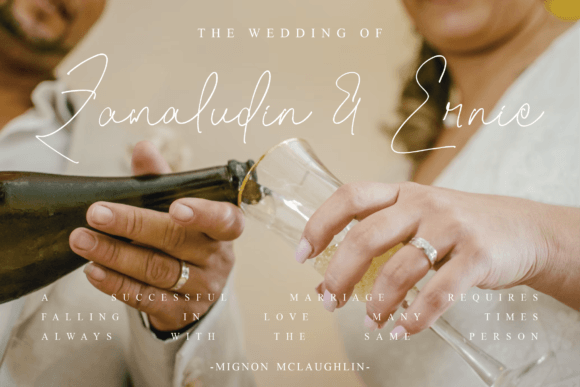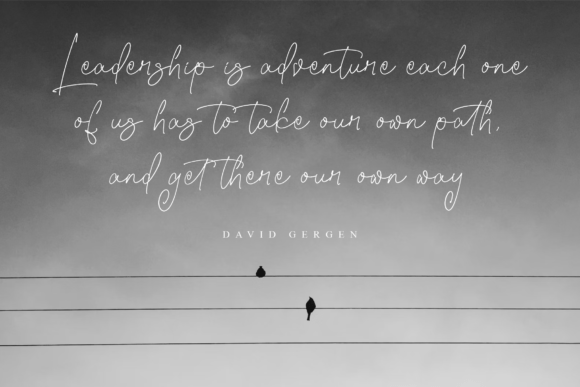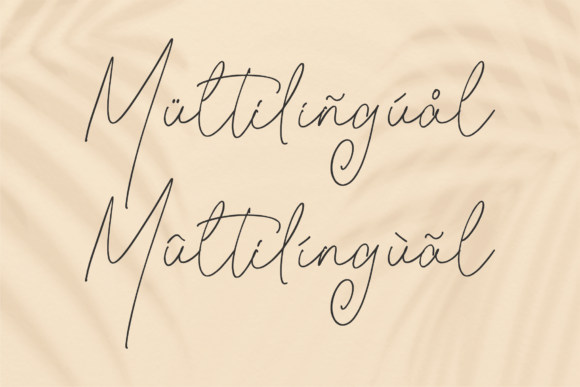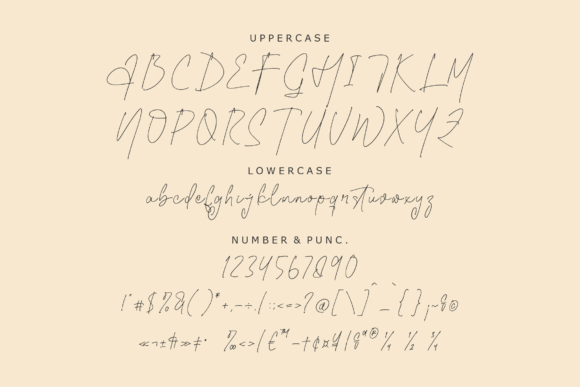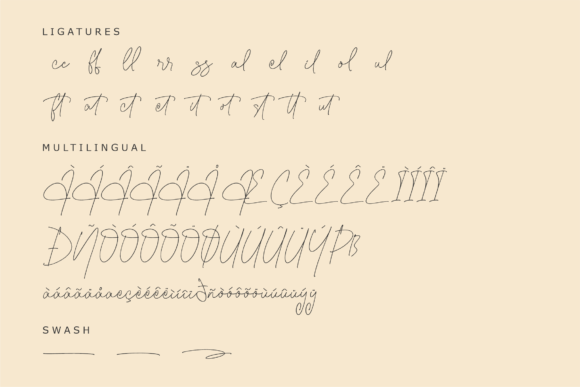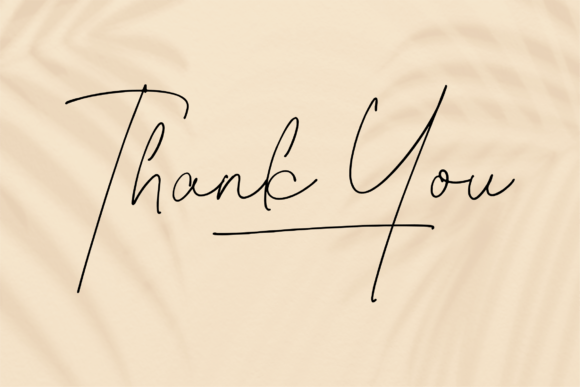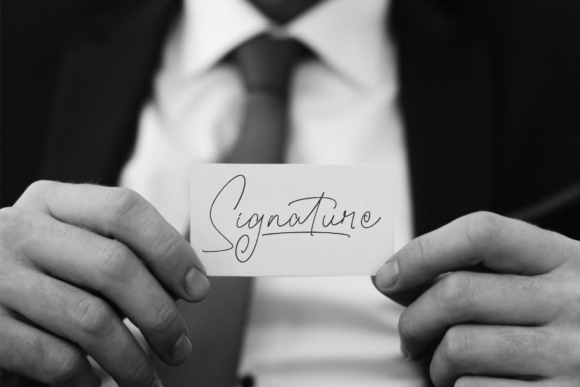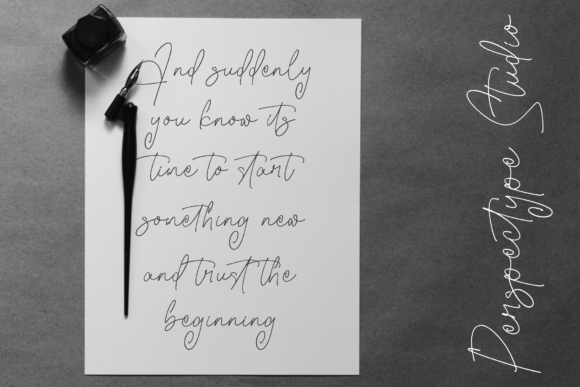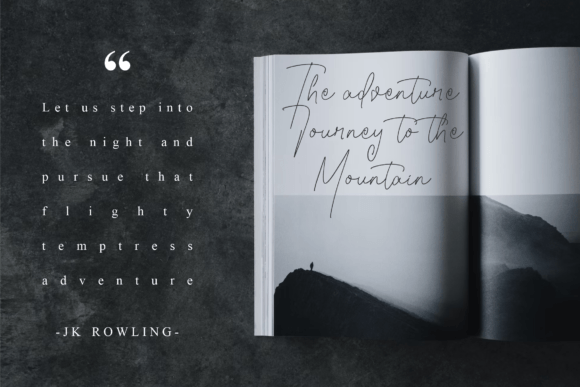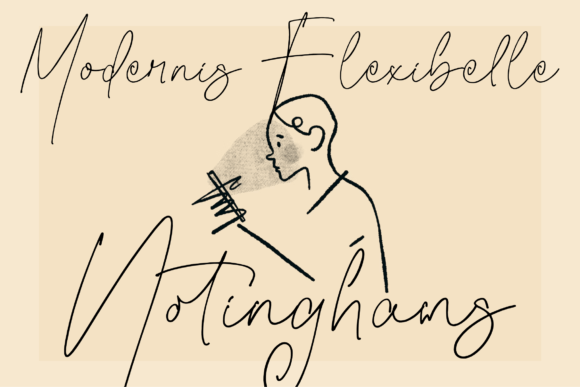
Marsshale Aesthetic Font
A Delicate and Elegant Script Font
Marsshale Aesthetic is a refined handwritten font with a graceful, flowing style. Each letter features smooth curves and balanced shapes that create a clean, polished look. The font feels sophisticated and warm at the same time, making it a great choice for many different design projects.
Its natural flow and elegant details bring a timeless quality to your text, whether you’re working on personal or professional work.
Marsshale Aesthetic is a versatile font that can adapt to almost any purpose. It’s ideal for wedding invitations, event signage, and save-the-date cards. You can also use it for branding materials, logos, and product packaging.
This font is a great choice for social media graphics, blog headers, and business cards. Its clean, flowing lines help your designs look cohesive and memorable.
The font includes uppercase and lowercase letters, numbers, and punctuation. It also has ligatures that make your text feel more natural and smooth. These features help you build layouts that look complete and professional.
Clear, Refined, and Easy to Read
Even though Marsshale Aesthetic has delicate, handwritten details, it remains clear and easy to read. The balanced spacing between letters keeps your text neat and organized, no matter the size.
Many designers pair Marsshale Aesthetic with simple sans-serif fonts. This combination creates contrast and helps your layouts look modern. Use Marsshale Aesthetic for titles and the sans-serif for body text. This guides the reader’s eye and keeps your content clean and professional.
To bring out the beauty of Marsshale Aesthetic, use light backgrounds and soft colors. Neutral tones like ivory, blush, and pastels help the font’s smooth curves stand out without distraction.
When designing invitations or wedding materials, consider adding floral elements or watercolor textures. These touches enhance the elegant, romantic feel. For branding and packaging, keep your layouts minimal so the script remains the focus.
Think about the mood you want to share. Marsshale Aesthetic is perfect for projects that should feel stylish, warm, and timeless.
Marsshale Aesthetic is more than just an elegant script font. It’s a design tool that transforms simple words into something special. Its graceful strokes and refined shapes bring sophistication to every project.
Adding Marsshale Aesthetic to your font collection means you’ll always have a reliable option for all kinds of design work. From wedding invitations and branding to social media posts and packaging, this font adapts effortlessly to your ideas.